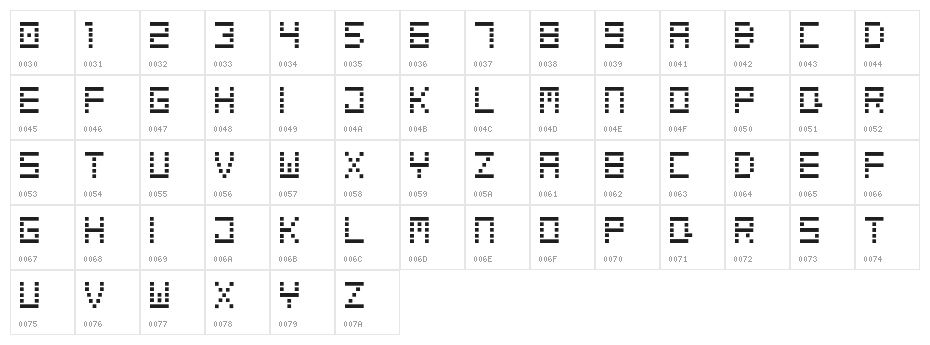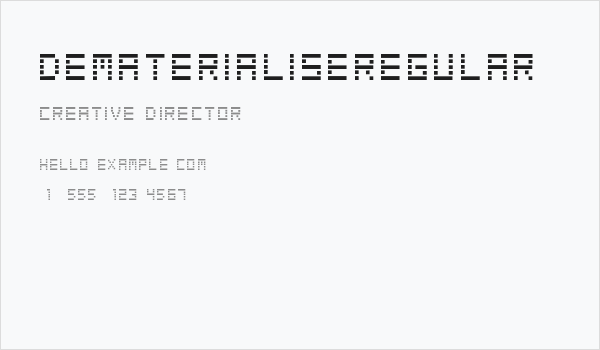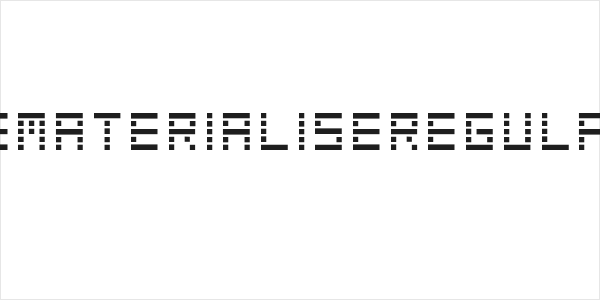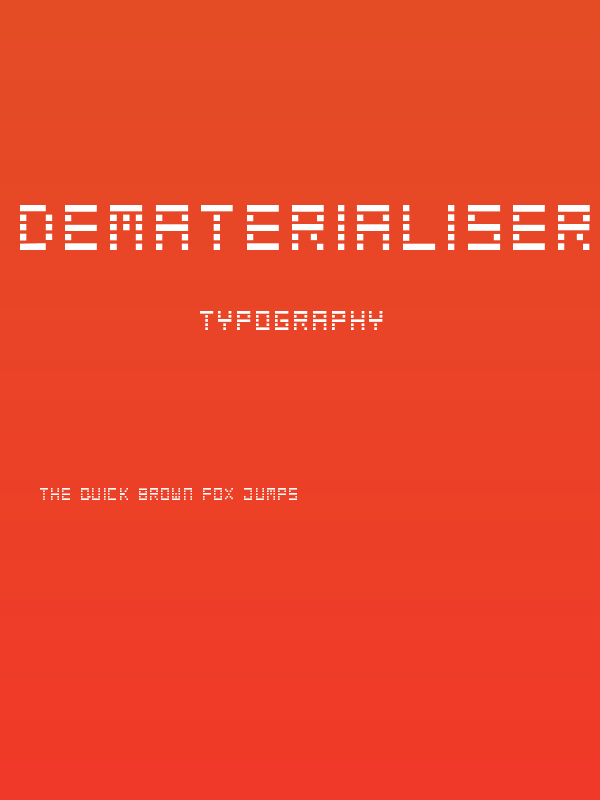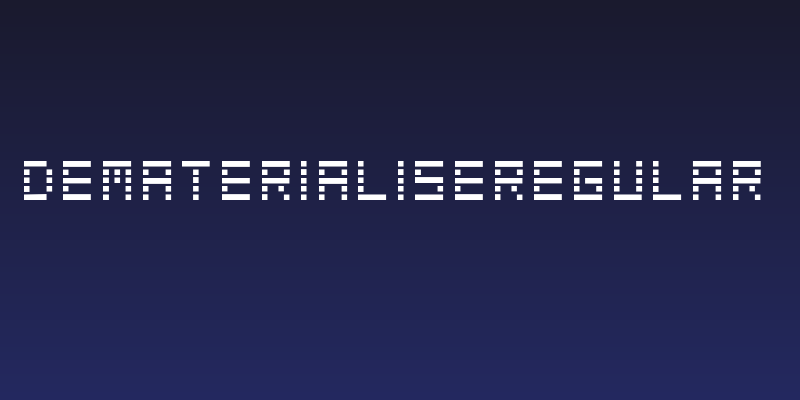
DematerialiseRegular Font
DematerialiseRegular Description
This font features a distinctive, futuristic design with characters composed of small, evenly spaced squares, creating a pixelated effect. The geometric structure gives it a digital and modern appearance, reminiscent of early computer displays or digital signage. Each character maintains a consistent height and width, ensuring uniformity across the typeface. The uppercase and lowercase letters, as well as numbers and special characters, all adhere to this pixelated style, making it highly recognizable and unique. The font's design is both minimalistic and bold, making it suitable for projects that require a tech-savvy or retro digital aesthetic.
| Use Case | Headlines, Logos, Digital displays |
| Proposed Projects | Ideal for tech-related projects, digital art, retro gaming interfaces, and modern branding. |